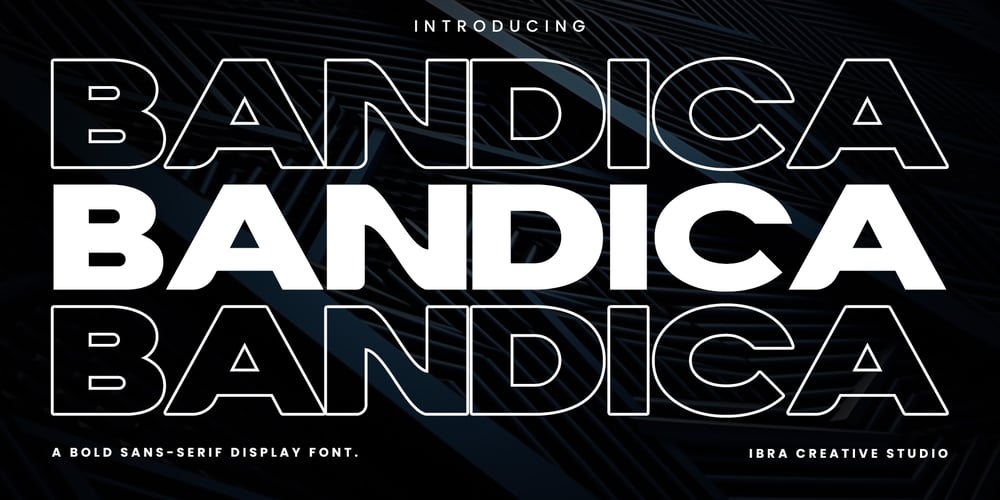
Bandica Font Family was designed by Roisatul Azizah and published by IbraCreative. Bandica contains 1 styles and family package options. Bandica – A Bold Sans-serif Display FontBandica is a striking sans-serif display font that boldly commands attention with its modern and assertive aesthetic. Characterized by clean lines and a lack of serifs, this typeface exudes confidence and contemporary style. The bold weight of Bandica amplifies its impact, making it ideal for headlines, banners, and other prominent design elements. The letterforms are meticulously crafted, ensuring a balance between readability and visual flair. With its distinctive personality and strong presence, Bandica stands out as a versatile choice for graphic designers seeking a bold and impactful typographic solution.Bandica is perfect for branding projects, logo, wedding designs, social media posts, advertisements, product packaging, product designs, label, photography, watermark, invitation, stationery, game, fashion and any projects.Fonts include multilingual support for; Afrikaans, Albanian, Czech, Danish, Dutch, English, Estonian, Finnish, French, German, Hungarian, Italian, Latvian, Lithuanian, Norwegian, Polish, Portuguese, Slovak, Slovenian, Spanish, Swedish.